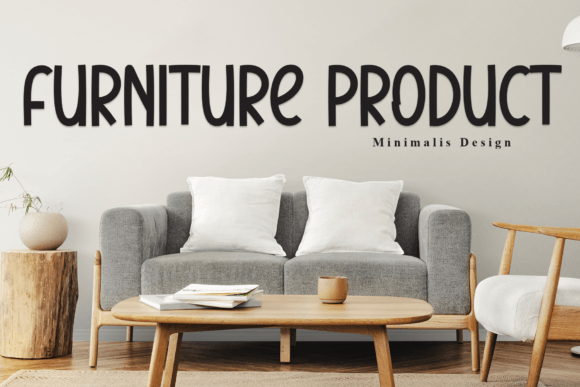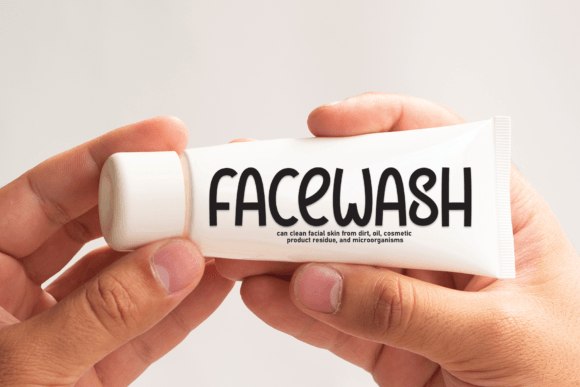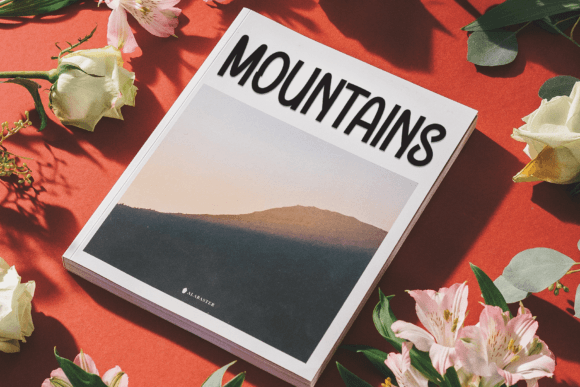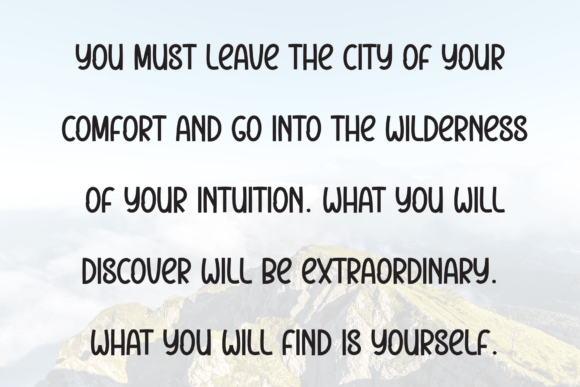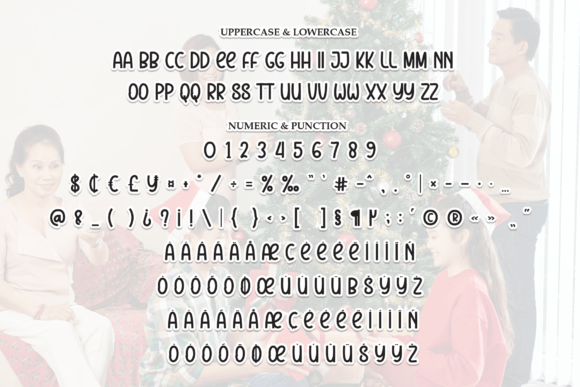
Meet Family Christmas: The Ultimate Festive Display Font for Your Holiday Designs
The holiday season is upon us, and with it comes the joy of creating festive and fun designs that capture the spirit of Christmas. Whether you’re a designer, crafter, or simply someone who loves the holiday season, you know how important it is to have the right typography to make your projects shine. That’s where “Family Christmas” comes in – a playful and whimsical display font that’s perfect for adding a touch of holiday cheer to your designs.
What is Family Christmas Font?
Family Christmas is a festive display font that’s designed to bring joy and warmth to your holiday designs. With its playful letterforms and touch of whimsy, this font captures the spirit of togetherness and celebration that’s at the heart of the holiday season. Whether you’re creating holiday cards, party invitations, or any other Christmas-themed project, Family Christmas is the perfect choice for adding a cheerful and inviting flair to your typography.
Key Features of Family Christmas Font
- Playful Letterforms: Family Christmas features playful letterforms that are sure to bring a smile to your face. Each letter is carefully crafted to capture the whimsy and fun of the holiday season.
- Whimsical Touch: This font has a touch of whimsy that’s perfect for adding a dash of personality to your designs. From the curly tails on the letters to the bouncy baseline, Family Christmas is full of fun and festive details.
- Perfect for Holiday Designs: Whether you’re creating holiday cards, party invitations, or any other Christmas-themed project, Family Christmas is the perfect choice. This font is designed specifically for holiday designs, so you can be sure it will add a touch of festive cheer to your work.
Why Choose Family Christmas Font?
There are many festive fonts out there, but Family Christmas stands out from the crowd. Here are just a few reasons why you should choose Family Christmas for your holiday designs:
- Unique and Eye-Catching: Family Christmas is a unique and eye-catching font that’s sure to grab attention. Its playful letterforms and whimsical touch make it a standout from more traditional holiday fonts.
- Versatile: This font is versatile and can be used for a wide range of holiday designs, from formal invitations to fun and playful party decorations.
- High-Quality: Family Christmas is a high-quality font that’s designed to look great in any design. Whether you’re printing on high-quality paper or sharing digitally, this font will look fantastic.
- Experiment with Sizes and Colors: Family Christmas looks great in a range of sizes and colors. Experiment with different combinations to find the one that works best for your design.
- Pair with Other Fonts: For added interest, try pairing Family Christmas with other fonts. A simple sans-serif font can provide a nice contrast to the playful letterforms of Family Christmas.
Ideas for Using Family Christmas Font
Family Christmas is a versatile font that can be used for a wide range of holiday designs. Here are a few ideas to get you started:
- Holiday Cards: Create festive holiday cards for friends and family using Family Christmas font.
- Party Invitations: Design fun and playful party invitations that set the tone for a festive holiday celebration.
- Christmas Decorations: Use Family Christmas font to create festive decorations, such as garlands, banners, and signs.
- Social Media Graphics: Create festive social media graphics that showcase your holiday spirit.
Family Christmas font is the perfect choice for adding a touch of festive cheer to your holiday designs. With its playful letterforms and whimsical touch, this font captures the spirit of togetherness and celebration that’s at the heart of the holiday season. Whether you’re a designer, crafter, or simply someone who loves the holiday season, Family Christmas is a must-have font for your holiday projects. So why wait? Download Family Christmas font today and start spreading the festive cheer!